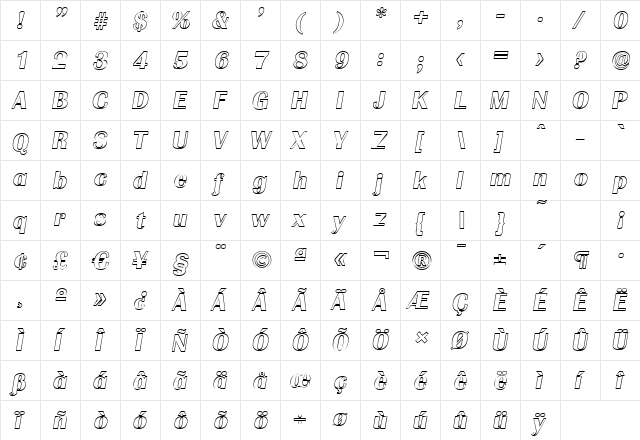
JesseBeckerOutline BoldItalic Font Preview
Design Context for JesseBeckerOutline Typeface
JesseBeckerOutline brings ornamental detail and strong personality to headlines and identities, where visual impact matters more than quiet functionality. The slanted form adds forward momentum and visual energy. The heavy weight commands attention and anchors typographic hierarchies.
Font Pairing: Pair with a clean neutral sans-serif for body copy to let JesseBeckerOutline's character lead without overwhelming the composition.
Pro Tip: Use JesseBeckerOutline exclusively at display sizes — it was designed to be seen, not read at length. Let a neutral companion handle body copy.